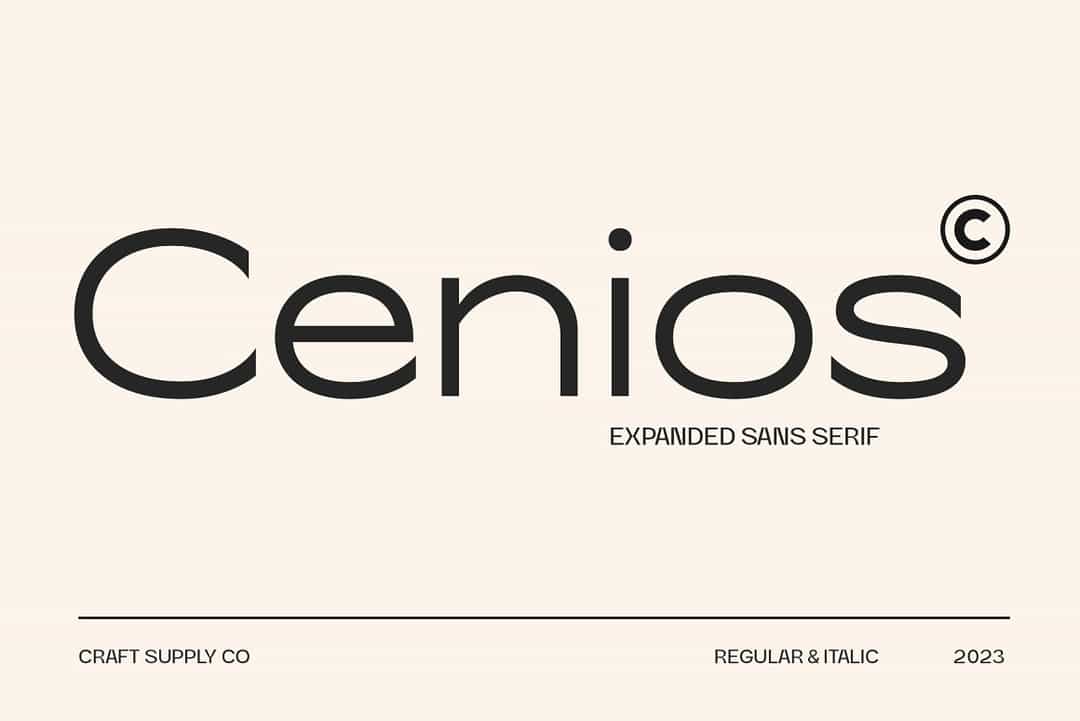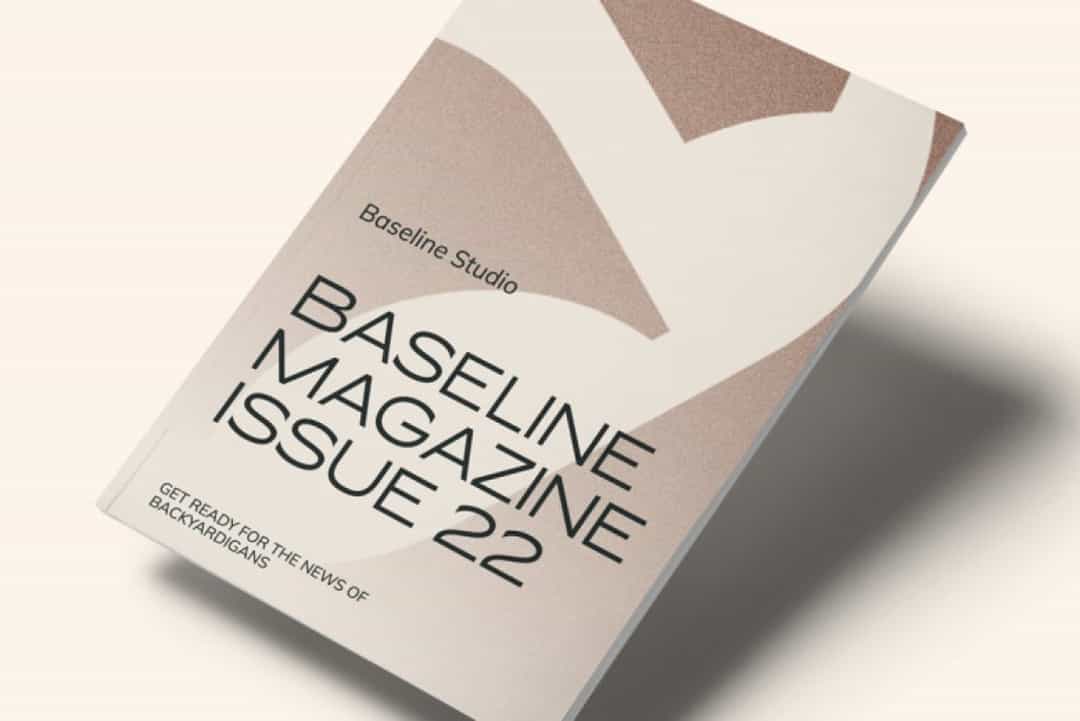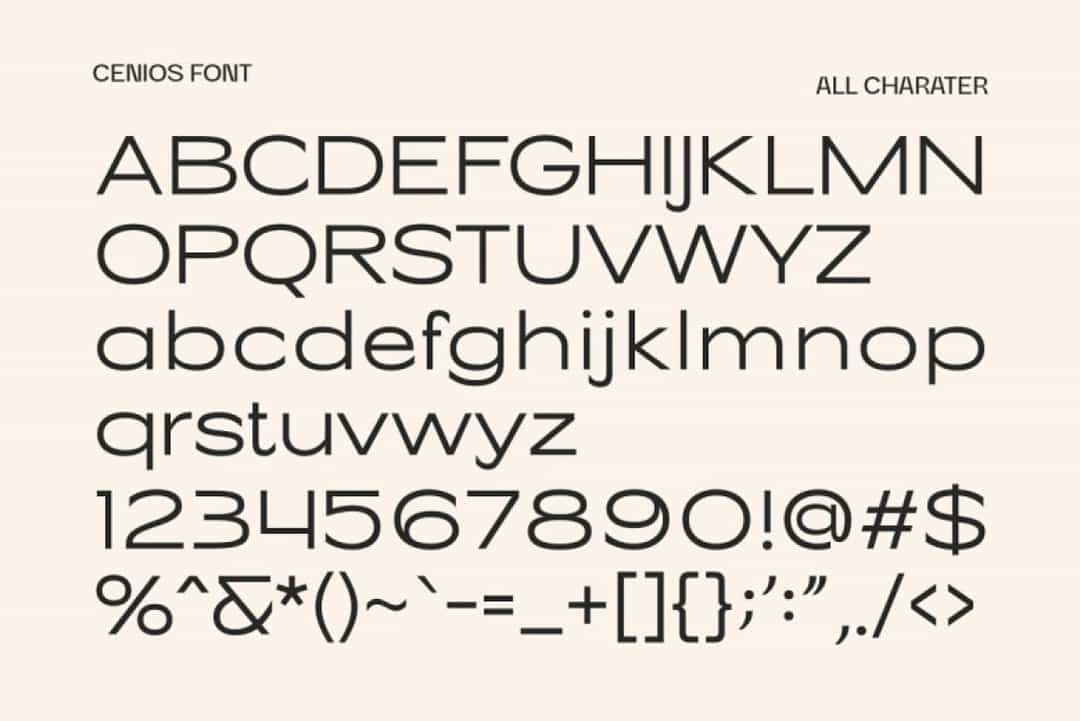
Cenios is an extended sans serif typeface that marks a new era in design. Boasting wide-spaced letterforms and contemporary aesthetic, Cenios adds fresh modernity to your designs with its wide-spaced letterforms and contemporary appeal. Take advantage of its vast potential through Cenios’ sweeping style for creating strong statements while increasing visual impact.